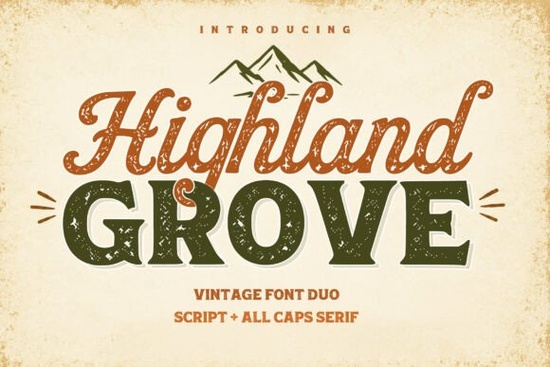
If you’ve been searching for a font that feels both nostalgic and fresh, Highland Grove might be exactly what your next project needs. It’s not just another pretty typeface it’s a thoughtful pairing of two distinct styles: a smooth, handwritten script and a bold, all-caps serif. Together, they create contrast without clashing, making them perfect for everything from wedding invites to boutique packaging or even retro-inspired logos.
What makes Highland Grove stand out is how naturally the two fonts work together. The script has warmth think of chalkboard signs at cozy cafes or hand-lettered gift tags. Meanwhile, the serif brings structure and authority, like vintage movie posters or classic shopfront signage. You don’t have to use them as a pair, but when you do, the result feels intentional and balanced.
Who should consider using Highland Grove?
This font duo fits well with creators who value personality and polish in equal measure. If you run a small business selling handmade goods, design printable templates, or craft custom apparel, Highland Grove gives you flexibility. The script works beautifully for names, quotes, or soft headlines, while the serif shines in titles, labels, or anywhere you need something to grab attention without feeling harsh.
It also pairs nicely with other script fonts if you’re layering styles. For example, if you’ve used Wedding Day Font for delicate invitations before, try Highland Grove’s script for a bolder alternative. Or if you liked the playful energy of Bailenson, you’ll appreciate how Highland Grove’s serif adds gravitas without losing charm.
How does it perform in real-world projects?
One of the best things about this font is its readability even at smaller sizes. The script maintains its flow without becoming illegible, which is rare among decorative fonts. That makes it useful for product packaging, social media graphics, or Etsy shop banners where clarity matters.
The all-caps serif is sturdy enough for merch like tote bags or mugs, especially when paired with minimalist layouts. Designers working on branding for coffee shops, bookstores, or artisanal brands will find it slots right into mood boards with ease. And because it leans vintage without being overly ornate, it doesn’t date itself quickly.
If you’ve ever used The Matcha Club for café menus or Teacher Notes for classroom printables, you already know how much tone matters in typography. Highland Grove sits comfortably between those worlds friendly enough for personal projects, professional enough for client work.
Can I mix it with other fonts successfully?
Absolutely. While the built-in pairing is strong, Highland Grove plays well with others too. Try combining the script with a clean sans-serif for modern contrast think Instagram quote cards or digital course covers. Or let the serif headline sit above body text set in something neutral like Helvetica or Lato.
For layered designs (like SVG cut files or layered mockups), the two styles within Highland Grove already complement each other perfectly. No extra tweaking needed. Just size, position, and go.
And if you’re experimenting with educational materials, you might compare its legibility to Studying though Highland Grove leans more decorative, it holds up surprisingly well in instructional contexts when used sparingly.
If you’re tired of fonts that feel either too stiff or too whimsical, Highland Grove strikes a middle ground that’s hard to find. It’s not trying to be trendy it’s aiming for timeless. That means it won’t look outdated next season, which is great for building a reliable toolkit.
Quick tip: Try using the script for first names and the serif for last names on personalized gifts. The contrast feels intentional and upscale without needing any extra design work.
- Check your project’s tone Is it warm but confident? Highland Grove fits.
- Test scale Use the script for medium-to-large sizes; reserve serif for headlines or short phrases.
- Pair wisely Combine with simple sans-serifs or neutrals to avoid visual clutter.
- Save a preset Once you find a combo you love, save it as a style or template for future reuse.